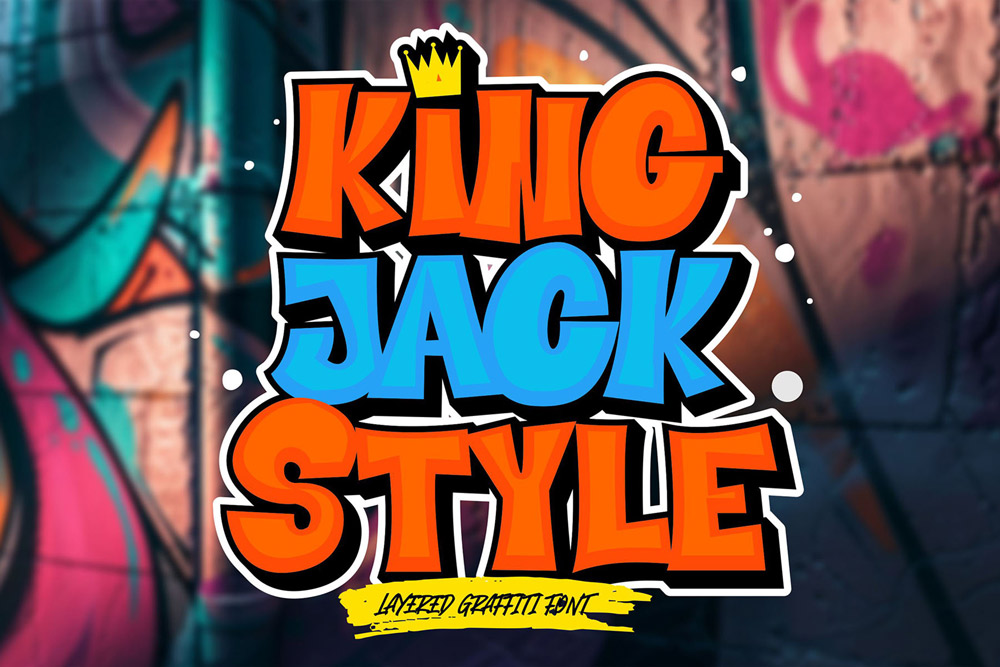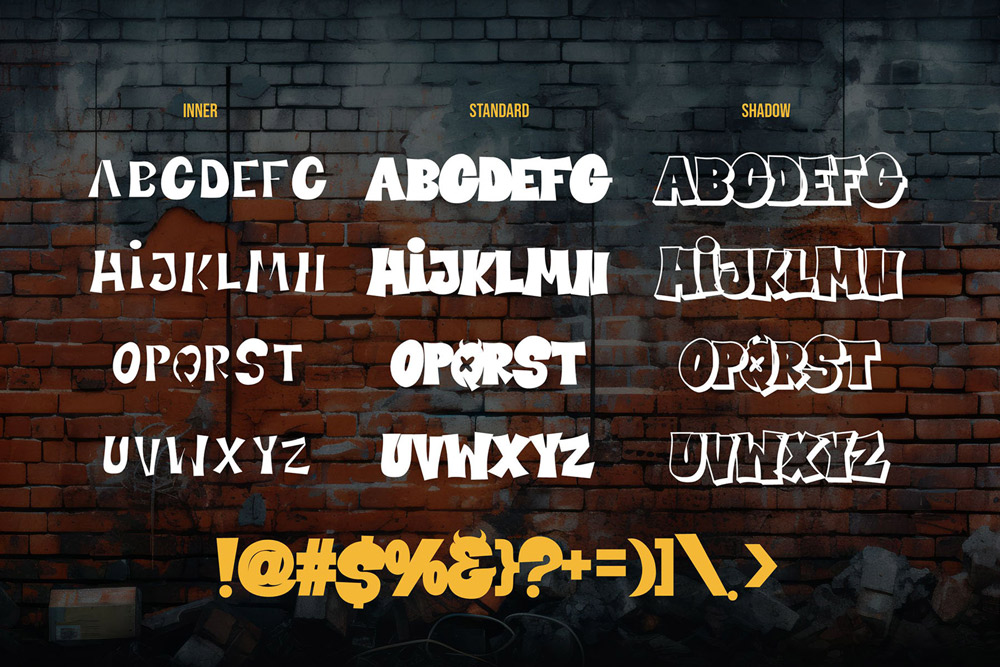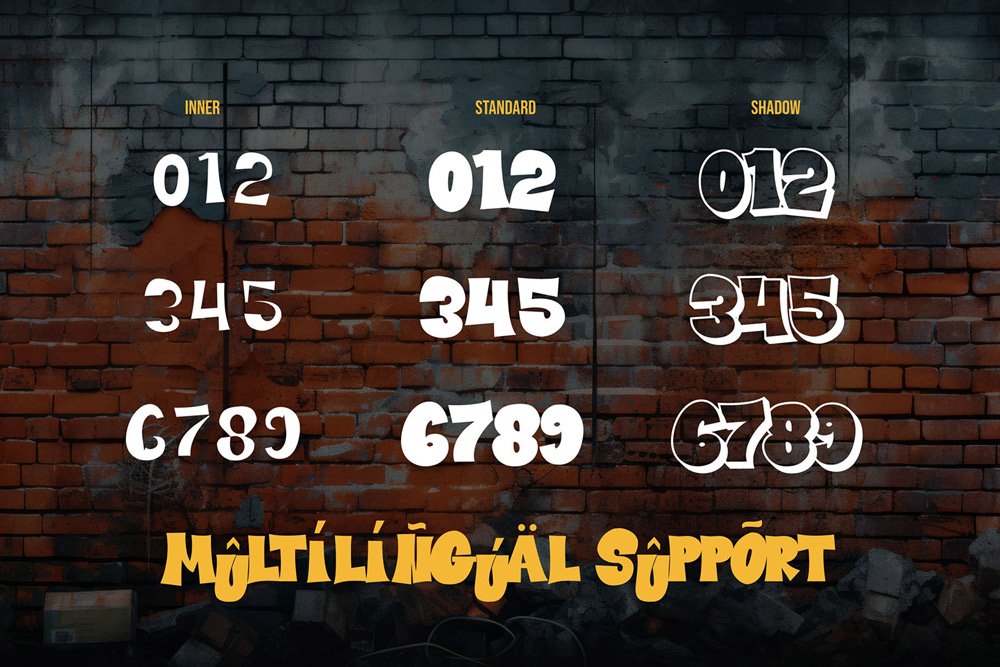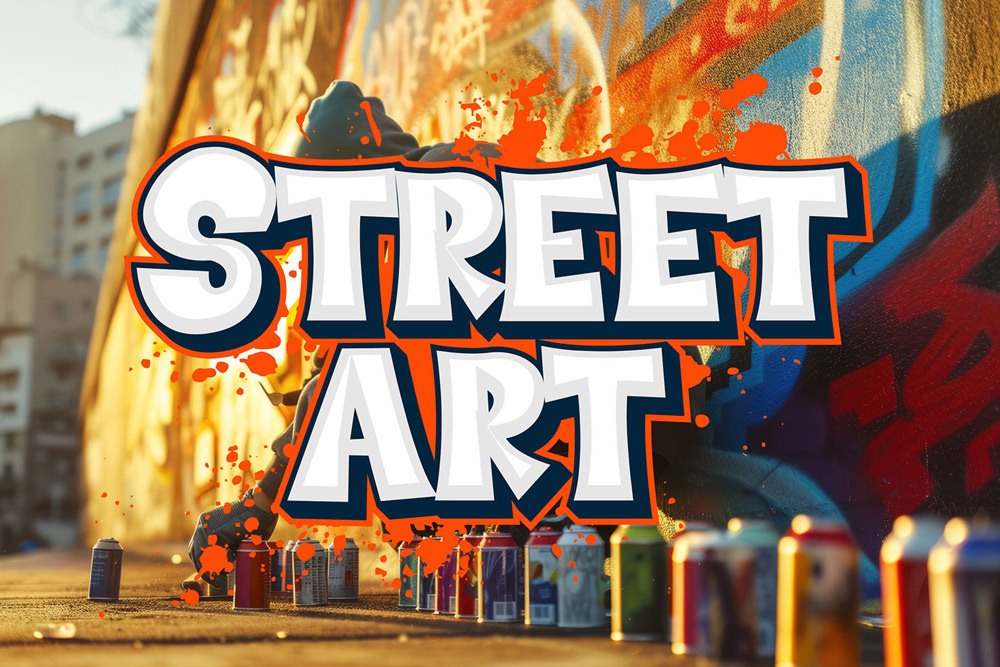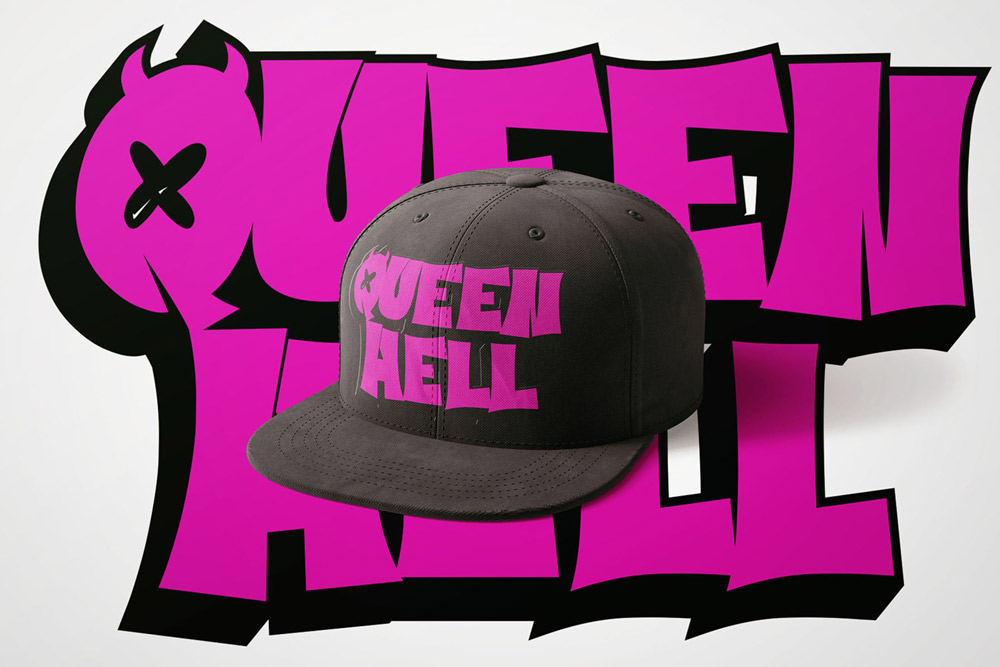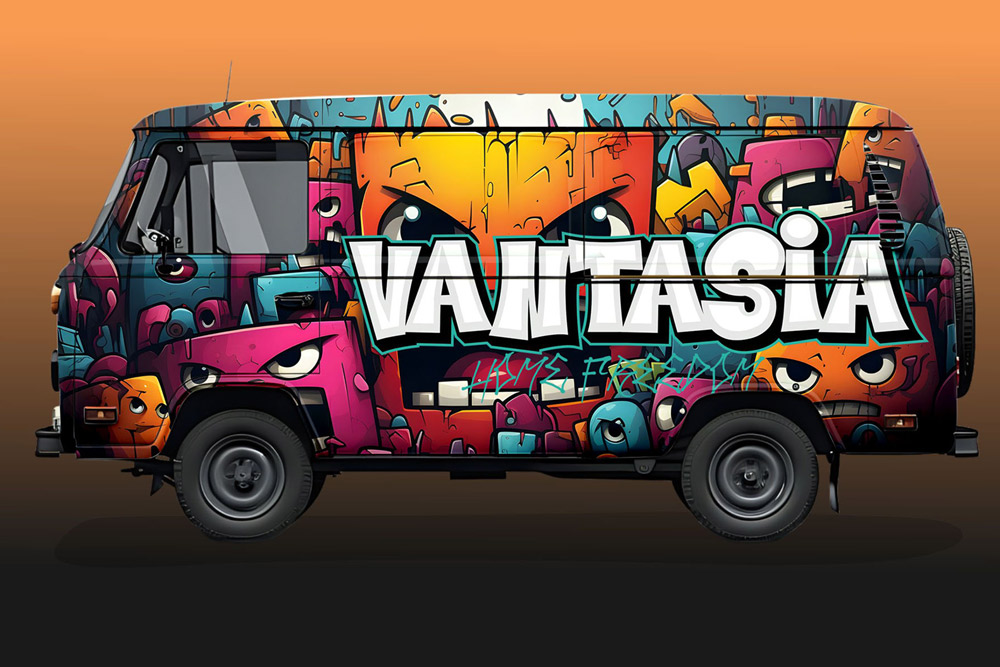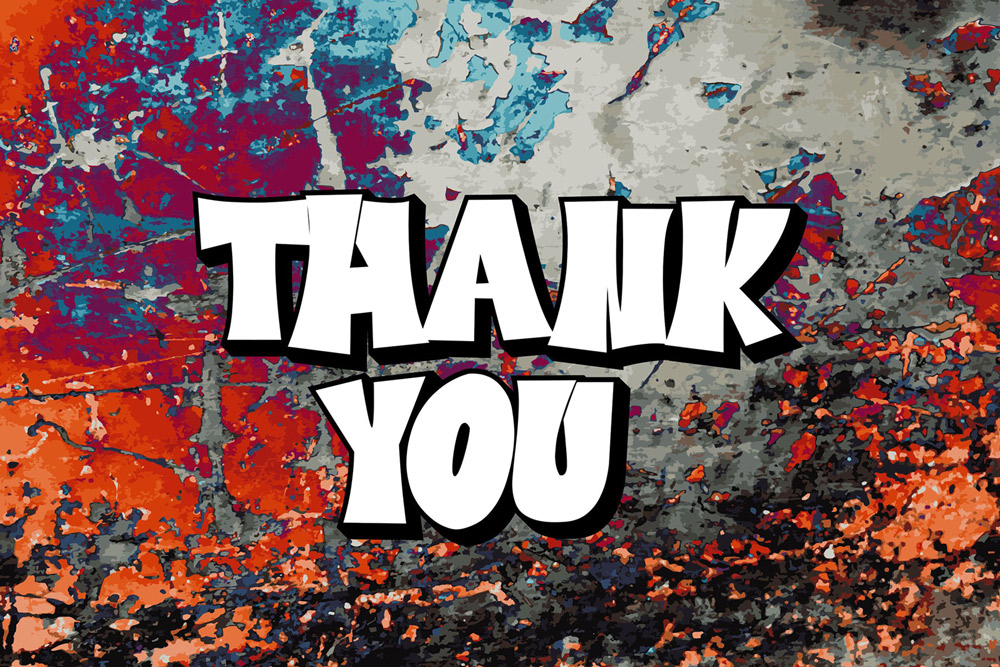
About King Jack Style
King Jack Style is a premium layered graffiti font crafted for designers who want to dominate the visual space with bold, street-inspired typography. This powerful graffiti font brings a dynamic urban attitude into your projects, combining authentic handstyle aesthetics with a modern layered system that gives you full creative control. Whether you’re designing for streetwear brands, music visuals, posters, or edgy branding, King Jack Style delivers a standout urban graffiti font experience.
Built with precision and artistic flair, this layered graffiti font allows you to stack styles such as Regular, Inner, and Shadow to create depth and dimension. The layered system transforms your typography into a striking visual composition, making it perfect for designers who want flexibility and bold expression. If you’re looking for a graffiti display font that combines style and versatility, King Jack Style is your go-to choice.
Key Features of King Jack Style
- Unique layered graffiti font system for creative flexibility
- Includes Regular, Inner, and Shadow styles
- Bold and expressive urban graffiti font aesthetic
- Perfect for streetwear, posters, logos, and album covers
- Easy layering for depth, outline, and shadow effects
- High-quality letterforms with strong visual impact
Font Details
King Jack Style is designed to provide a complete graffiti typography system that enhances your creative workflow and gives you maximum design freedom.
Uppercase Characters
This graffiti font includes a full set of uppercase letters with bold strokes and street-style details, perfect for headlines, titles, and logo designs that demand attention.
Number and Punctuation
The font includes complete numbers and punctuation, making this display graffiti font suitable for professional and commercial design projects.
Multilingual Support
King Jack Style offers multilingual support, allowing you to use this urban font across different languages and reach a wider audience globally.
Why Designers Love King Jack Style
Designers love King Jack Style because it offers unmatched versatility as a layered graffiti font. The ability to combine Regular, Inner, and Shadow styles allows for endless creative possibilities. You can easily create bold outlines, 3D effects, or shadowed typography that stands out in any design.
Another reason why this graffiti font is highly محبوب among creatives is its authentic street vibe. The letterforms feel natural and expressive, capturing the real essence of graffiti culture while still maintaining readability. This makes it perfect for both experimental and commercial use.
Additionally, the layered system makes this urban graffiti font highly efficient. Instead of using multiple tools or effects, designers can achieve complex typography directly using the font styles. This saves time and enhances workflow efficiency.
Perfect For
King Jack Style is ideal for any project that needs a bold graffiti display font, including:
- Streetwear and fashion branding
- Poster and flyer design
- Music album covers and hip-hop visuals
- Logo design with urban identity
- Social media graphics and content
- Skate culture and street art visuals
If you want your designs to have a strong presence, this layered graffiti font will help you achieve that effortlessly.
Powerful Closing Statement
King Jack Style is not just a layered graffiti font—it’s a complete creative toolkit for designers who want to push boundaries. With its bold structure, layered flexibility, and authentic street style, this graffiti font empowers you to create visuals that are loud, expressive, and unforgettable. Whether you’re building a brand or designing for urban culture, King Jack Style gives you the tools to stand out and make a lasting impact. Elevate your typography and bring your ideas to life with this powerful urban graffiti font.